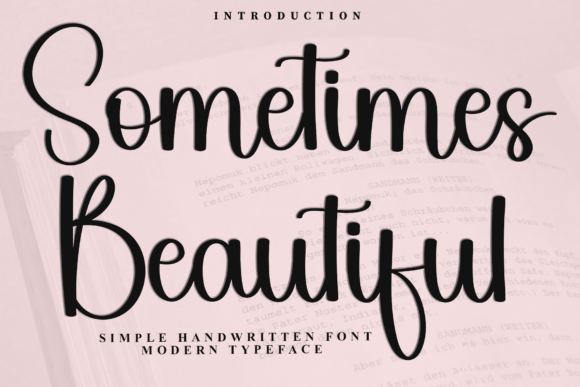
Sometimes Beautiful Font: Add a Touch of Enchantment to Your Holiday Designs
The holiday season is upon us, and what better way to capture its spirit than with a festive and merry typeface? Sometimes Beautiful Font is a decorative font that is perfect for adding a touch of enchantment to your designs. With its whimsical flair and nostalgic ambiance, this font is ideal for greeting cards, gift tags, and holiday-themed projects.
What Makes Sometimes Beautiful Font So Special?
Sometimes Beautiful Font is a unique and eye-catching typeface that stands out from the crowd. Its decorative elements and whimsical flair make it perfect for adding a touch of magic to your designs. Whether you’re creating holiday greeting cards, gift tags, or festive posters, this font is sure to bring a cheerful and nostalgic ambiance to your words.
The Perfect Font for Holiday Designs
Sometimes Beautiful Font is specifically designed with the holiday season in mind. Its festive and merry design makes it perfect for a wide range of holiday-themed projects, including:
- Greeting cards: Whether you’re creating Christmas cards, Hanukkah cards, or holiday cards for any other occasion, Sometimes Beautiful Font is the perfect choice.
- Gift tags: Add a touch of elegance and sophistication to your gift tags with this beautiful font.
- Holiday posters: Create eye-catching posters that capture the spirit of the holiday season with Sometimes Beautiful Font.
- Social media graphics: Add a festive touch to your social media graphics with this whimsical font.
With Sometimes Beautiful Font, you can create stunning holiday designs that are sure to impress your friends, family, and clients.
The Benefits of Using Sometimes Beautiful Font
There are many benefits to using Sometimes Beautiful Font in your holiday designs. Some of the most significant advantages include:
- Unique and eye-catching design: Sometimes Beautiful Font is a one-of-a-kind typeface that is sure to stand out from the crowd.
- Festive and merry design: Sometimes Beautiful Font is specifically designed with the holiday season in mind, making it perfect for a wide range of holiday-themed projects.
- Whimsical flair: This font adds a touch of magic and whimsy to your designs, making them truly special.
By using Sometimes Beautiful Font in your holiday designs, you can create stunning and eye-catching projects that capture the spirit of the season.
Tips for Using Sometimes Beautiful Font
To get the most out of Sometimes Beautiful Font, here are a few tips to keep in mind:
- Use it sparingly: While Sometimes Beautiful Font is perfect for holiday designs, it’s essential to use it sparingly to avoid overwhelming your audience.
- Pair it with other fonts: Sometimes Beautiful Font pairs well with other fonts, so don’t be afraid to experiment with different combinations.
- Experiment with colors: The right color scheme can make or break your design. Experiment with different colors to find the perfect combination for your Sometimes Beautiful Font design.
- Have fun: The most important thing is to have fun with Sometimes Beautiful Font! Experiment with different designs and techniques to create something truly unique.
By following these tips, you can create stunning holiday designs that showcase the beauty and magic of Sometimes Beautiful Font.
Sometimes Beautiful Font is a unique and eye-catching typeface that is perfect for adding a touch of enchantment to your holiday designs. With its festive and merry design, whimsical flair, and ease of use, this font is ideal for a wide range of holiday-themed projects. Whether you’re creating greeting cards, gift tags, or holiday posters, Sometimes Beautiful Font is sure to bring a cheerful and nostalgic ambiance to your words. So why wait? Download Sometimes Beautiful Font today and let your typography shine with the magic of this beautiful font!